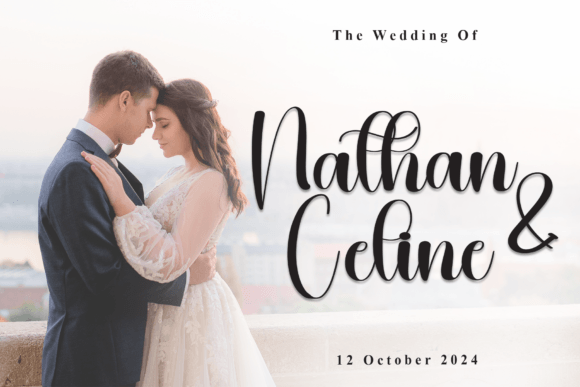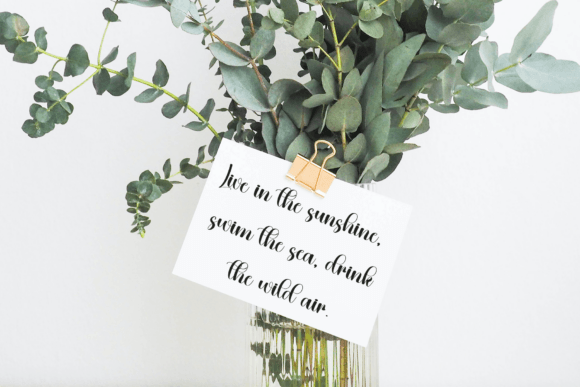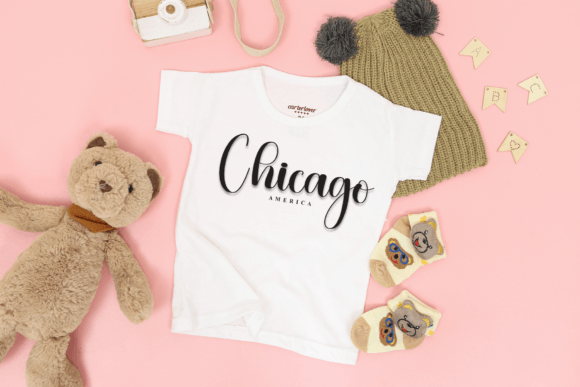
Introduction to Newyear Christmas Font
As the holiday season approaches, many designers find themselves on the hunt for the perfect font to bring their creative projects to life. Have you ever scrolled through a Pinterest board filled with festive invitations, holiday cards, and cozy branding designs, only to feel a pang of inspiration and a desire to create something equally special?
That’s where the Newyear Christmas Font comes in – a beautiful handwritten script font that’s sure to add a personal touch to any project. With its smooth, flowing style and elegant curves, this font is perfect for designers looking to create high-quality, professional designs that shine.
Key Features of Newyear Christmas Font
- Unique blend of New Year and Christmas themes, perfect for creative projects.
- High-quality design resource with transparent background for seamless integration.
- Includes a wide range of characters, including uppercase and lowercase letters, numbers, and special symbols.
- Designed with a modern and festive aesthetic, ideal for holiday-themed designs and marketing materials.
- Resolution: 300 DPI, ensuring crisp and clear typography in various print and digital applications.
- Size: Includes multiple font sizes, from 8pt to 72pt, allowing for flexible use in various design projects.
Honest Review: Newyear Christmas Font
I recently came across the Newyear Christmas Font, and I must say it’s a fantastic addition to any designer’s arsenal. The font is perfect for creative projects that require a touch of festive flair. One of the standout features is the transparent background, which makes it super easy to use in various design scenarios.
Here are some things that work well about the Newyear Christmas Font:
- ✨ High-quality design: The font looks sharp and well-crafted, making it perfect for both digital and print projects.
- ✨ Easy to use: With a transparent background, you can easily place the font on any design without worrying about it clashing with other elements.
However, I did notice a few limitations:
- ⚠️ Limited font styles: The font only comes in a few different styles, which may not be suitable for designers who need a wider range of options.
- ⚠️ Not ideal for large-scale text: While the font looks great for small to medium-sized text, it may not be the best choice for large-scale text due to its decorative nature.
Overall, I’m really impressed with the Newyear Christmas Font. It’s a great design resource that’s perfect for adding a touch of festive flair to your creative projects. Just be aware of its limitations, and you’ll be all set to create some amazing designs.
For optimal results, use the Newyear Christmas Font on a transparent background to give your design a clean and modern look. Experiment with different font sizes, colors, and combinations to achieve the desired effect.
The Newyear Christmas Font is perfect for:
- Christmas card designs
- Holiday social media graphics
- Wedding invitations and decorations
- Seasonal marketing materials
Q: Is the Newyear Christmas Font suitable for high-resolution designs?
Yes, the Newyear Christmas Font is designed to be a high-quality design resource, suitable for high-resolution designs. The font files are optimized for print and digital use, ensuring crisp and clear typography at various sizes and resolutions.